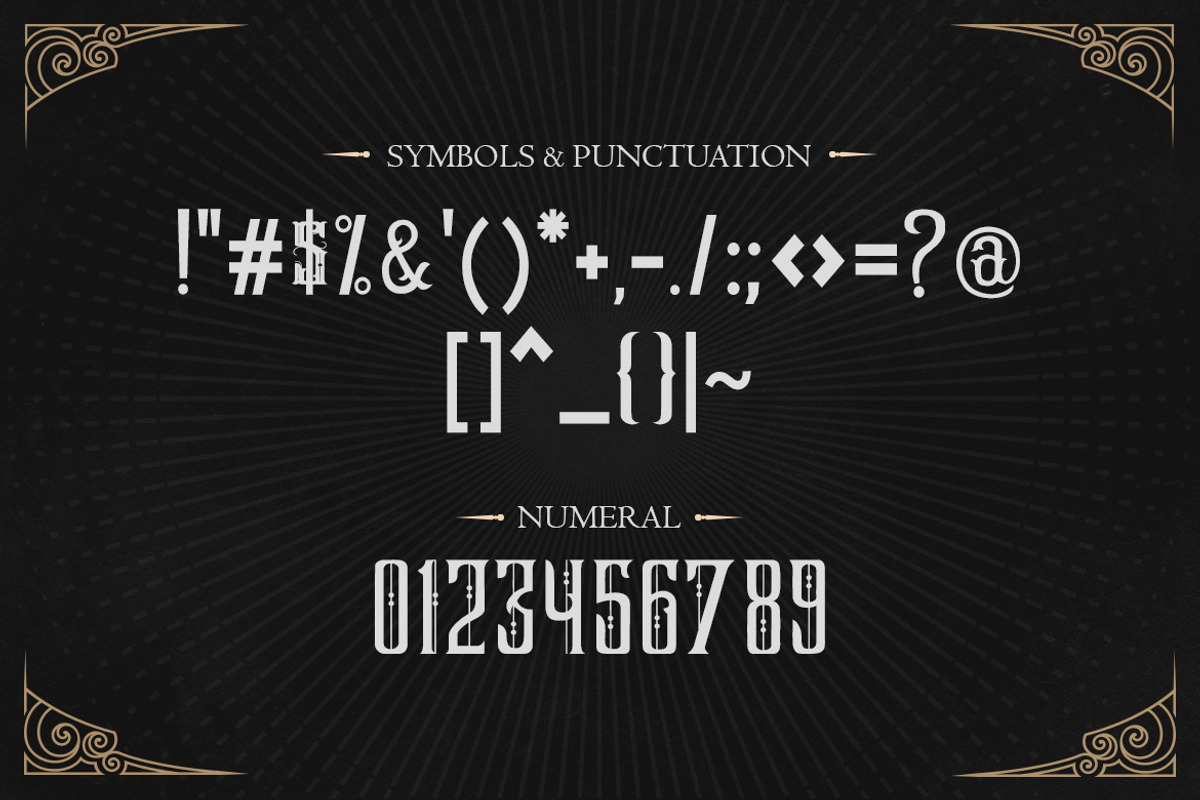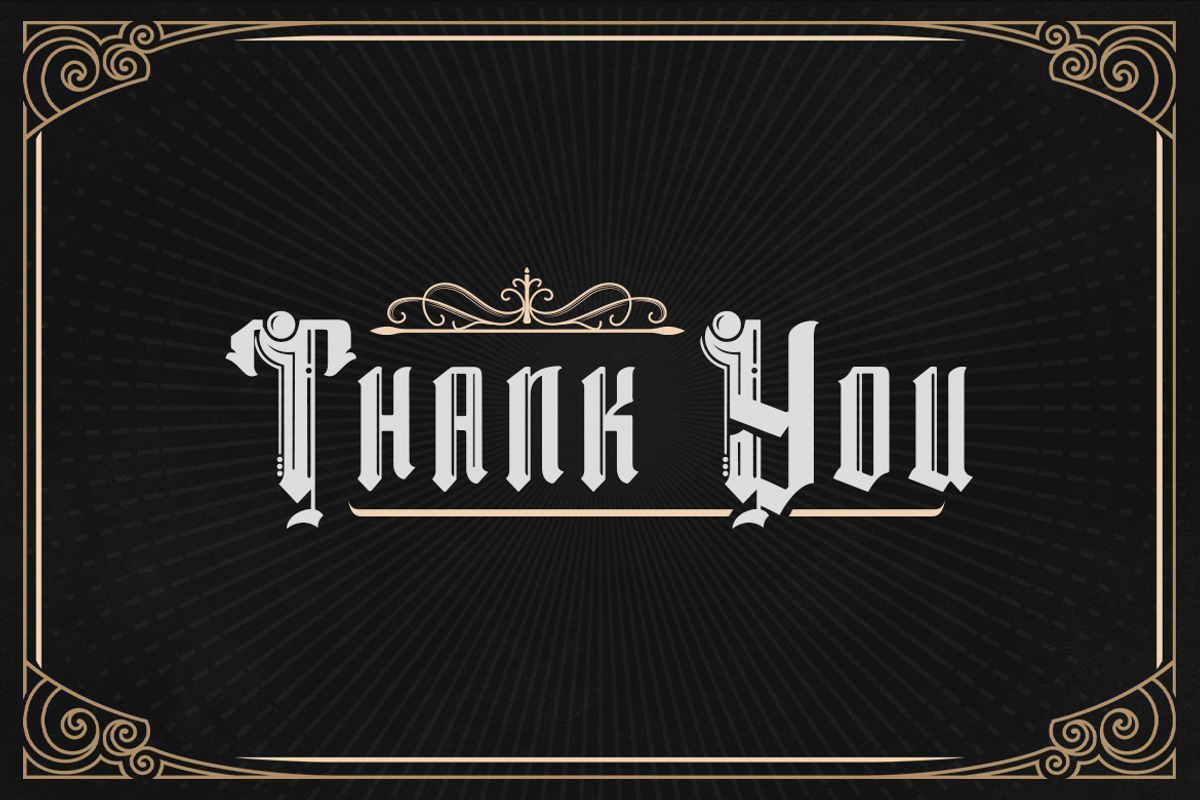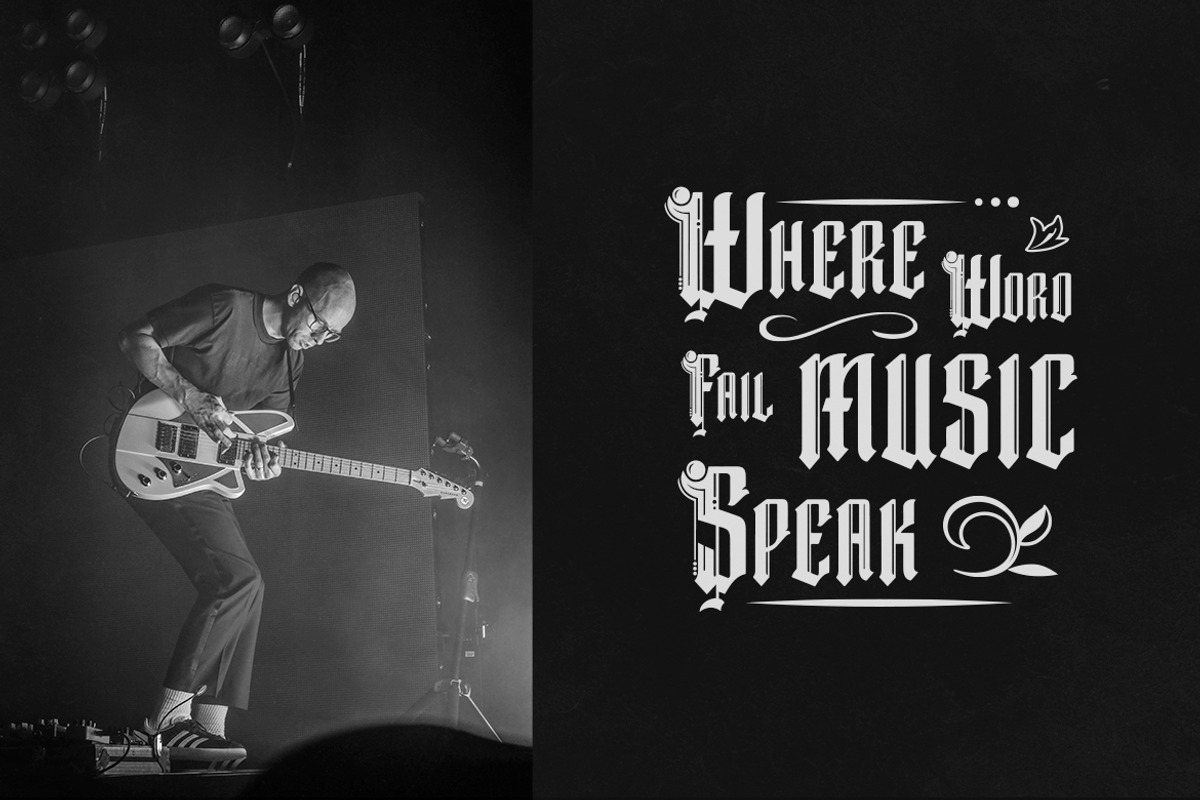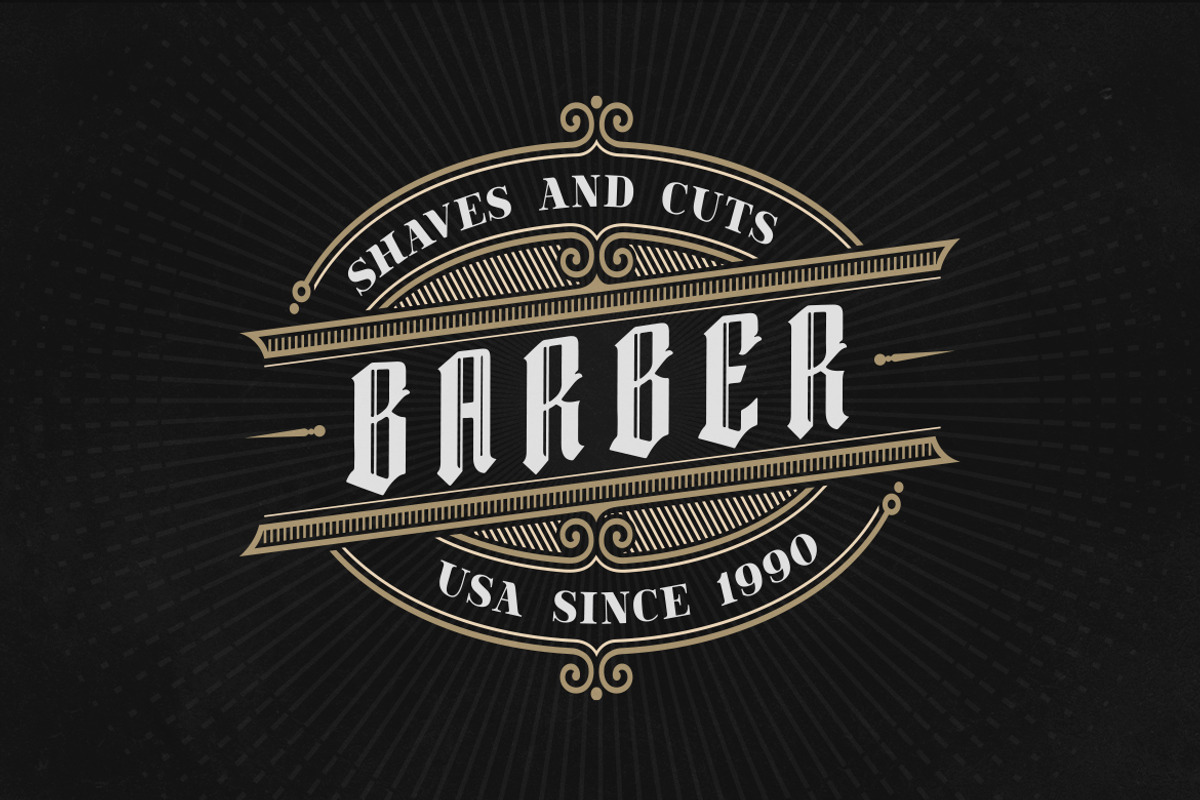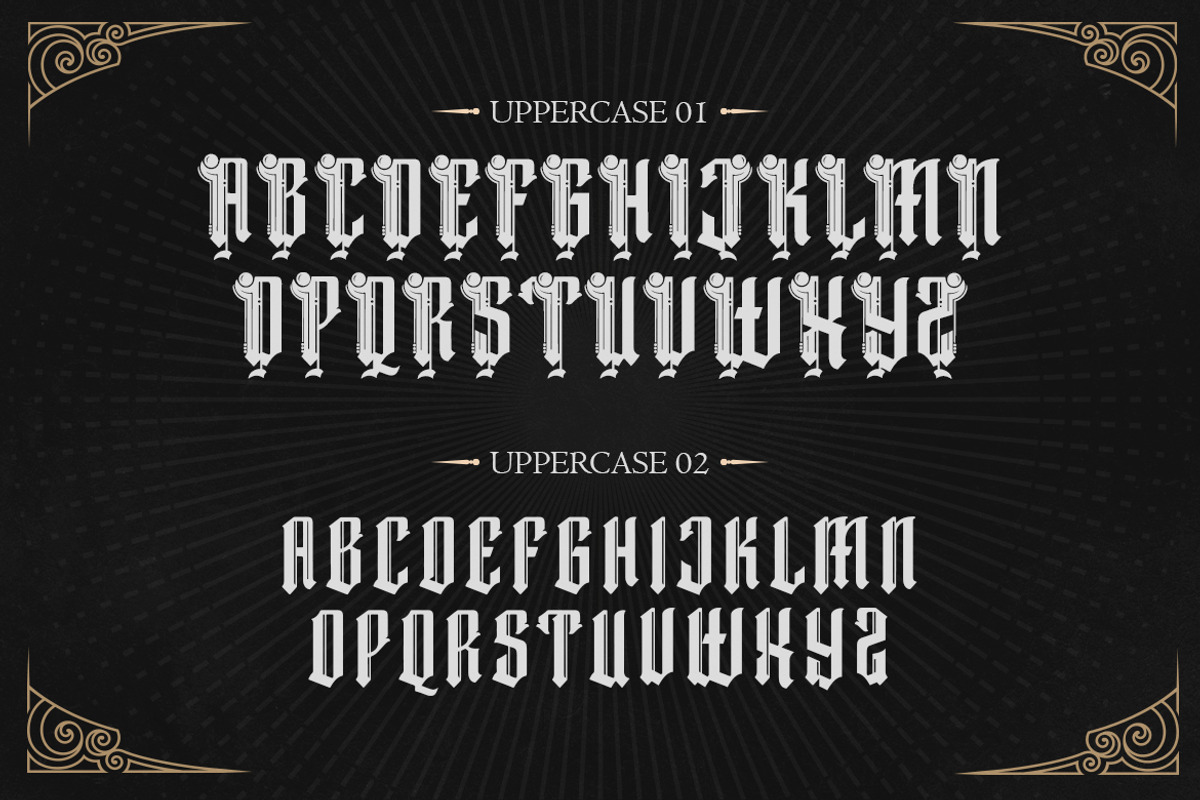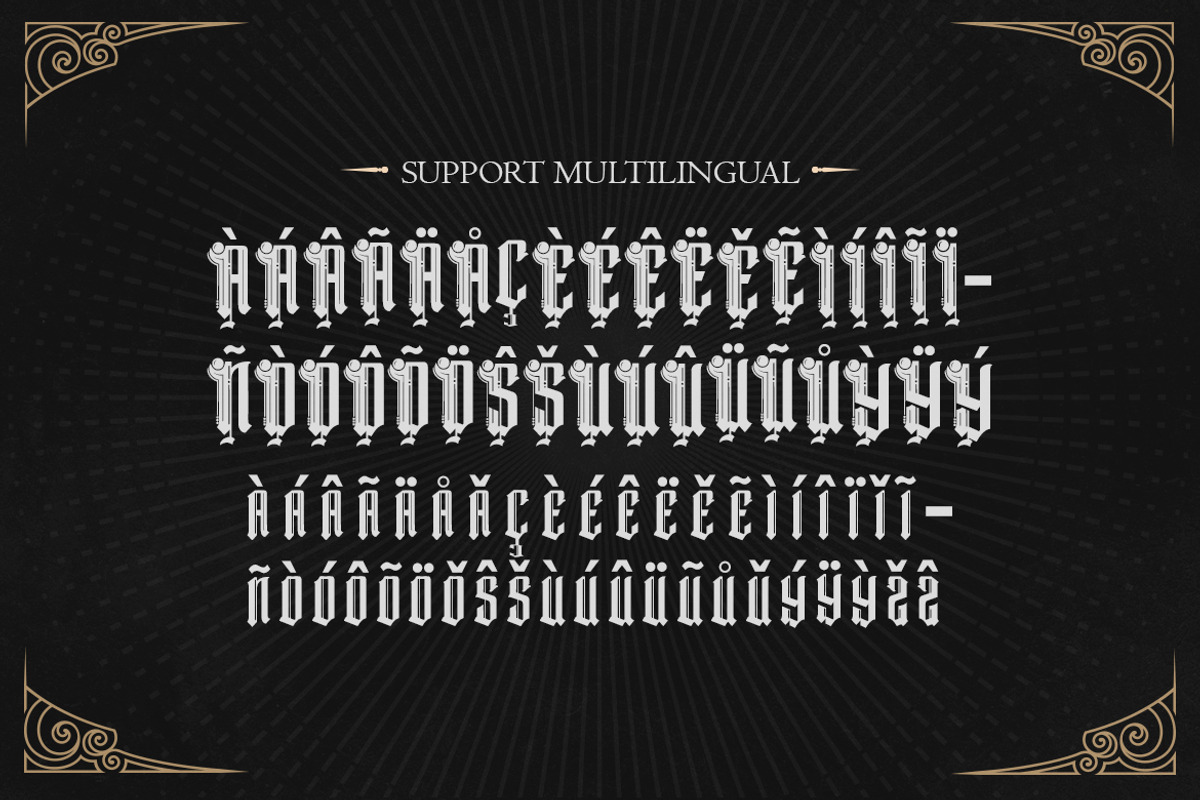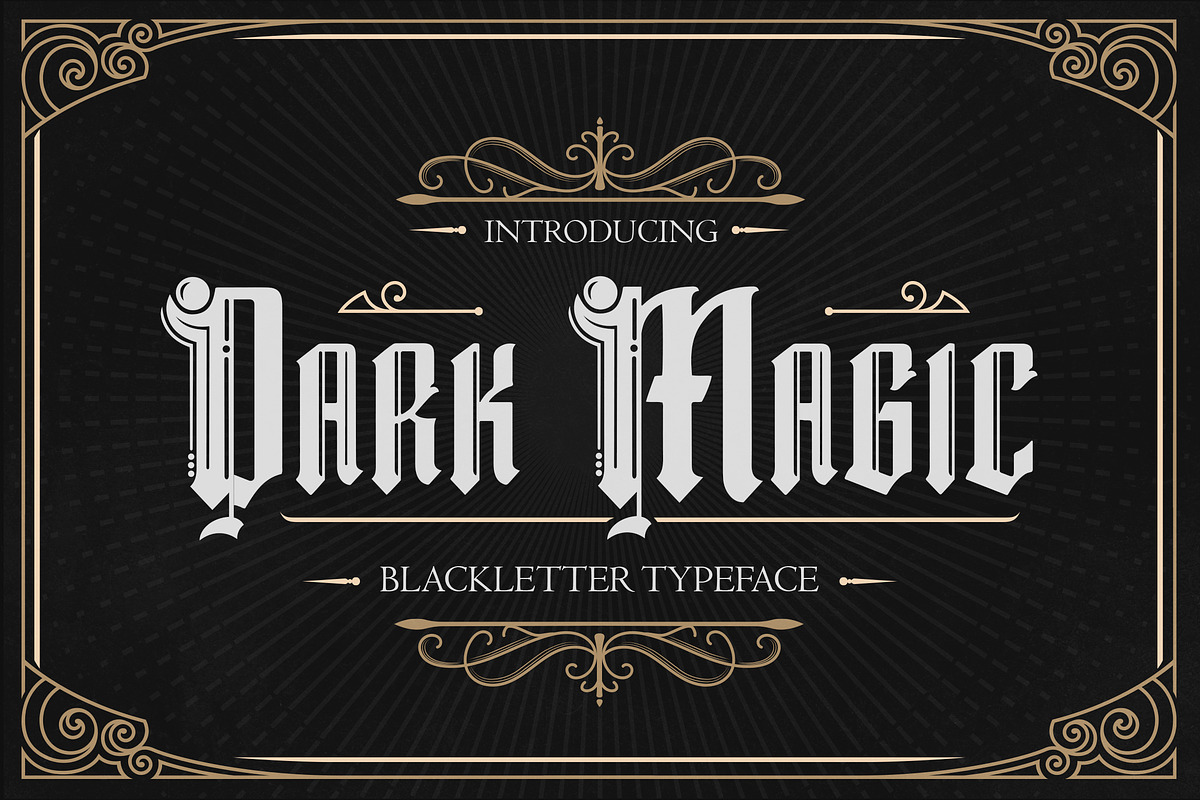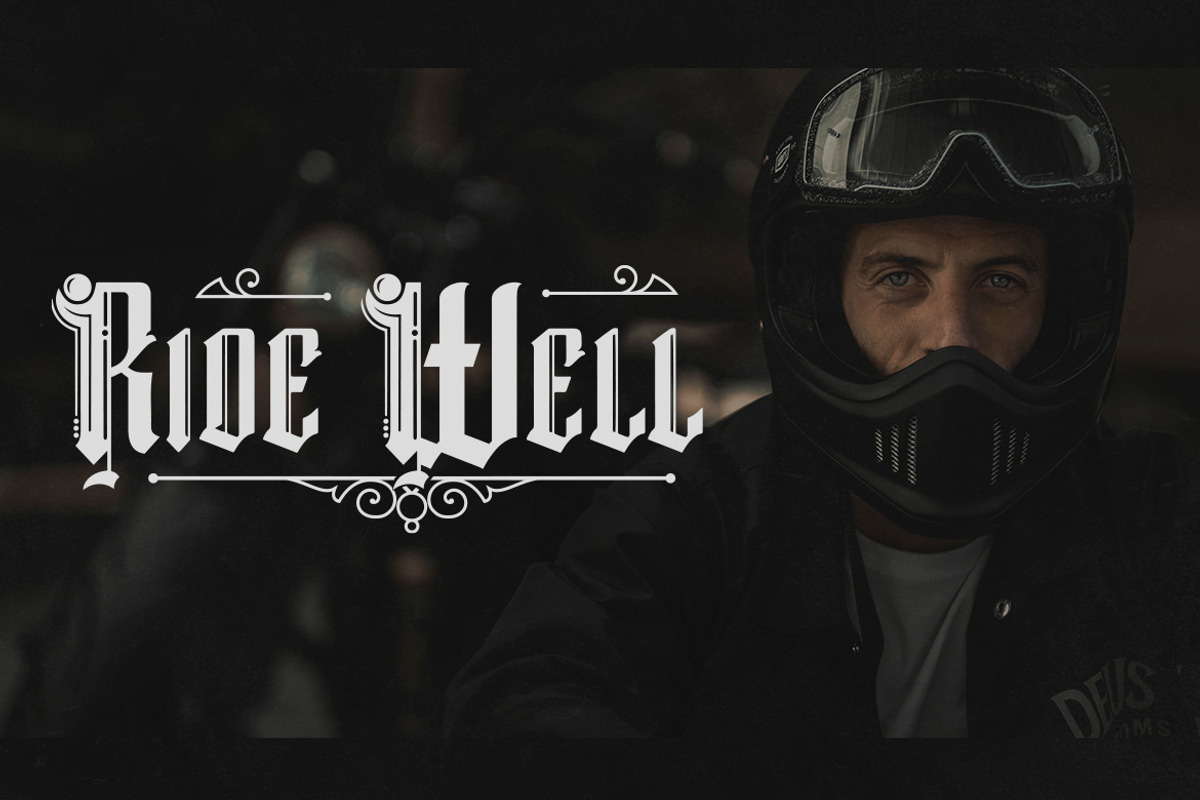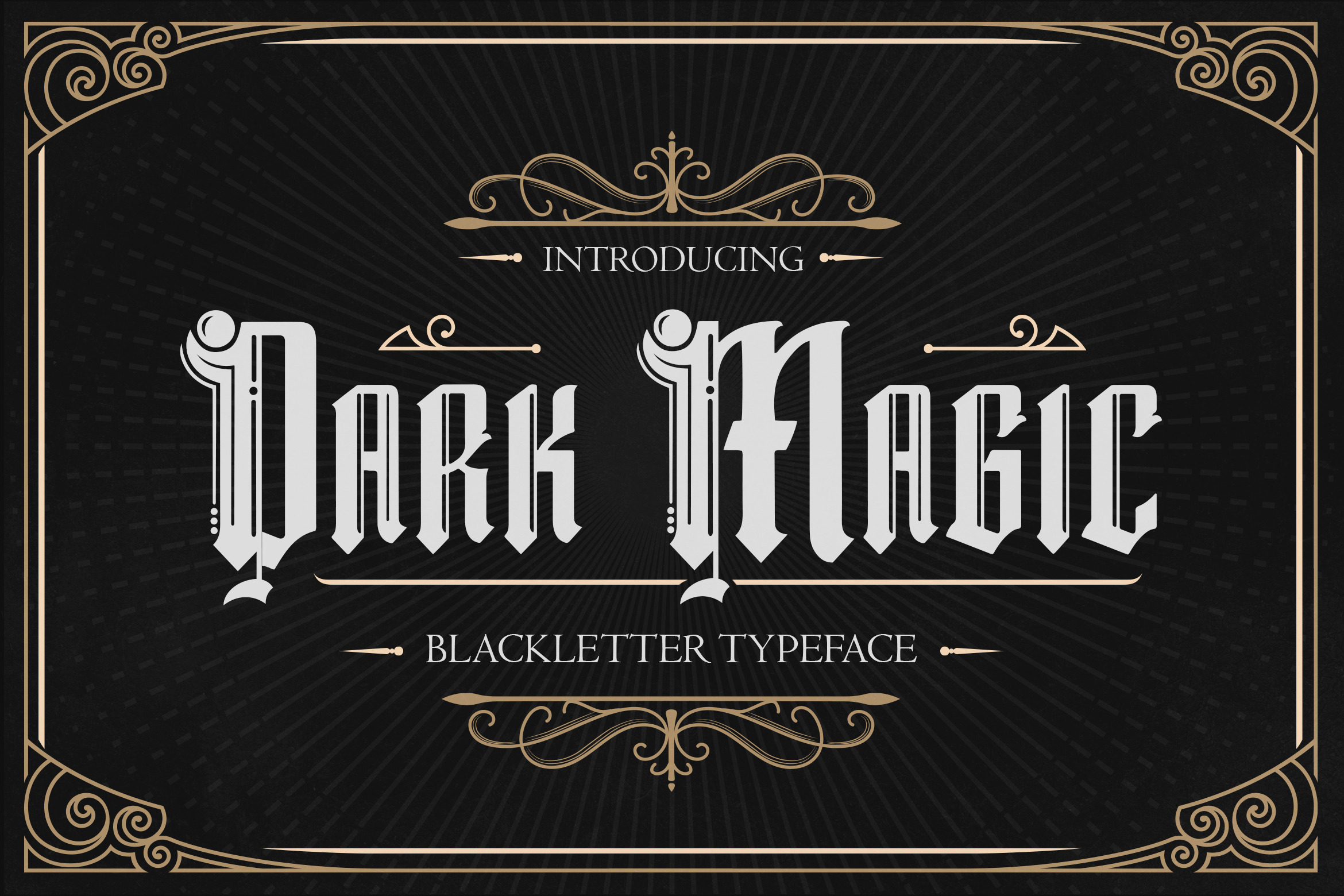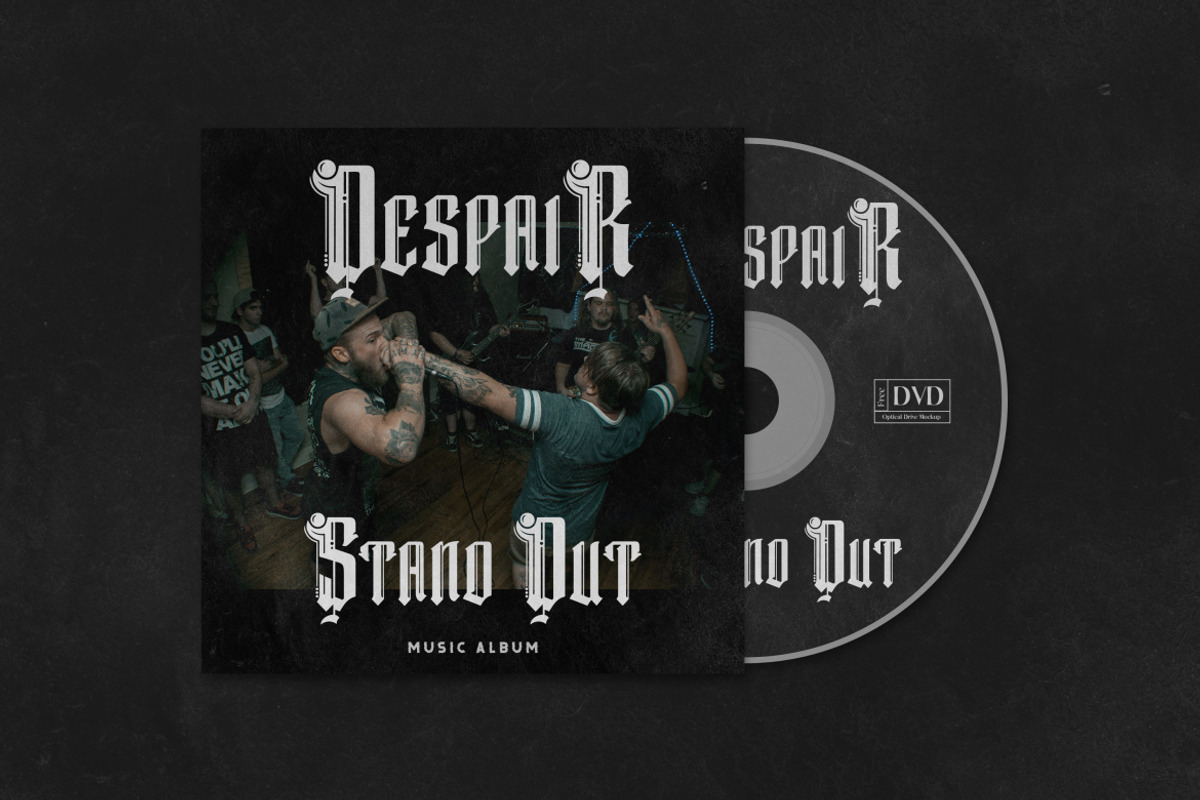
Dark Magic – Blackletter Typeface
Dark Magic is a bold, gothic styled blackletter font. It is imposing and incredibly adept for designs requiring a strong touch and classic design. Add it confidently to your projects, and you won’t be disappointed.